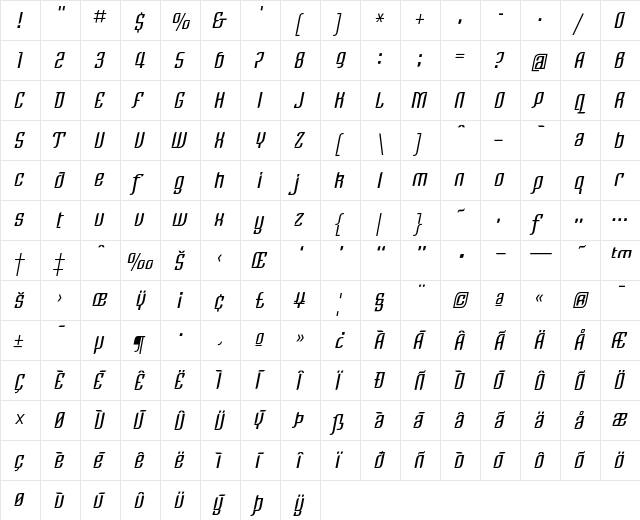
Linotype Rezident Two Regular
Design Context for Linotype Rezident Two Typeface
Linotype Rezident Two is a composed and adaptable typeface that performs quietly and consistently across a wide range of design contexts.